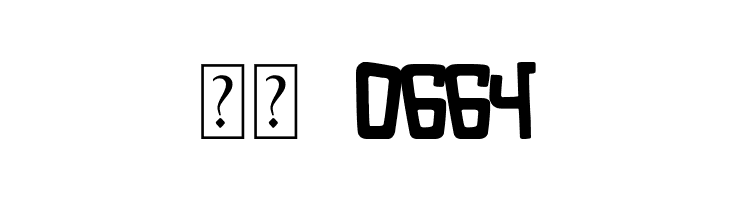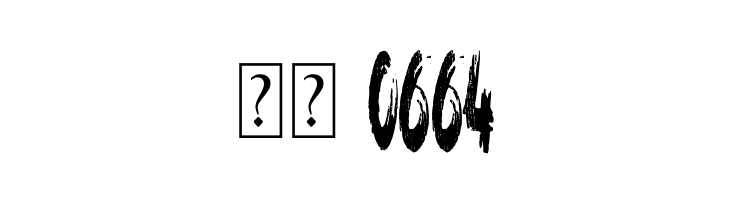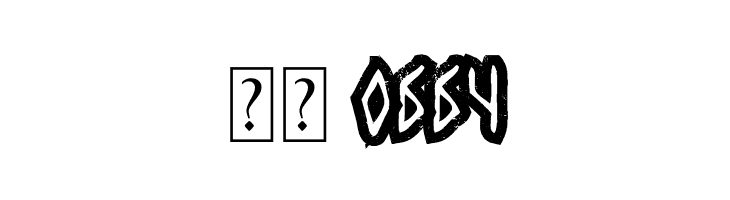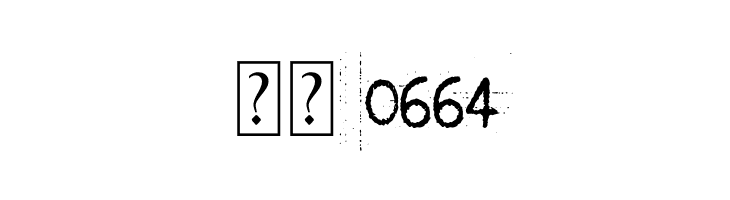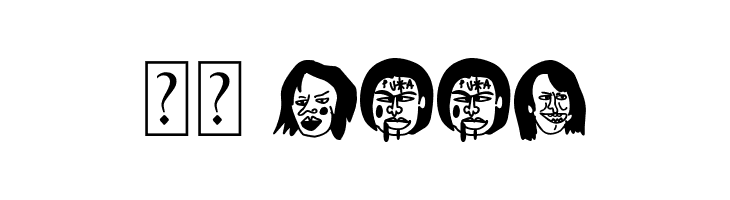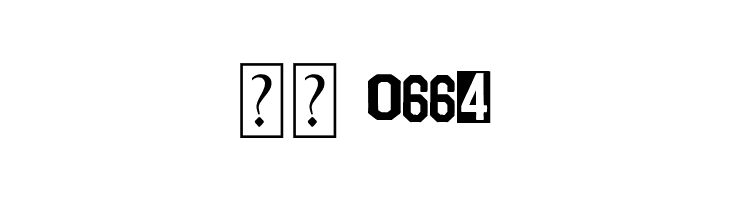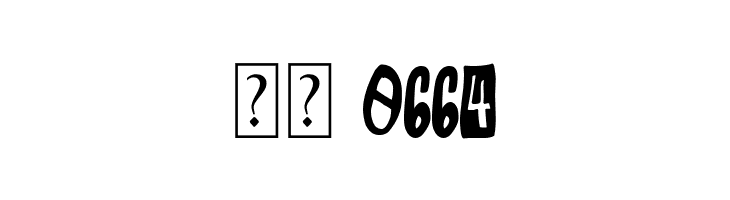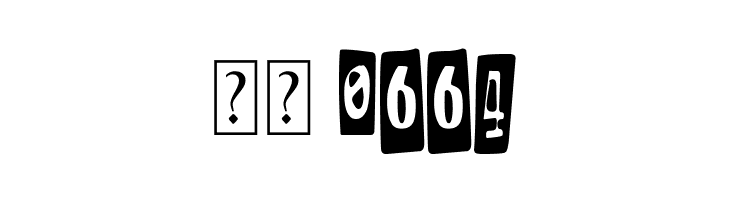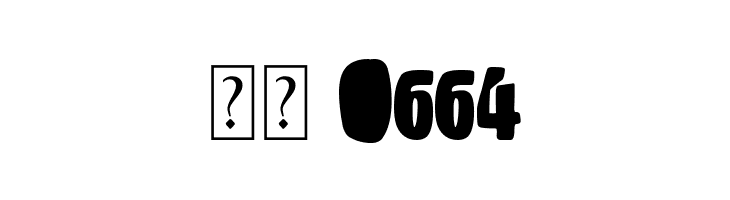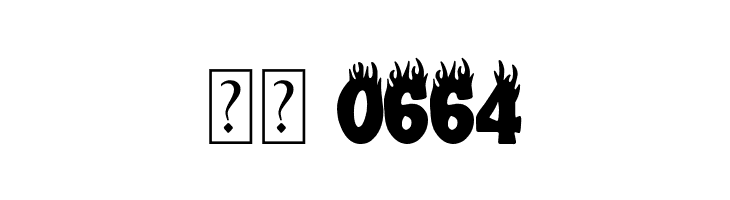
• Printing
Icon-based font featuring printing and production symbols.
• Prison of Love
A bold, glitch-inspired font with a modern, distressed look.
• Problems in Winsconsin
A bold, geometric font with a strong industrial aesthetic.
• Profile
Silhouette profile illustrations of various head shapes and hairstyles.
• Profile
• Property of Thor
A bold, distressed font with a rugged, hand-drawn appearance.
• Protagonista
A bold, textured font with a playful and rugged appearance.
• Prudencia
A pixelated, retro-style font with a bold, blocky design.
• Psycho Dad
A bold, horror-themed font with a dripping effect.
• Psycho Dad
A bold, horror-themed font with dripping effects and jagged edges.
• Puerto Rico Beach
A bold, playful font with thick, rounded strokes and a friendly appearance.
• Punk Army
A bold, distressed font with a rebellious, grunge-like aesthetic.
• Punk Cristiano
A bold, punk-inspired font with irregular, jagged letterforms and a rebellious aesthetic.
• Punk Homo Erectus
A bold, punk-inspired font with irregular, boxed characters.
• Punk Survival
A gritty, distressed font with a punk rock aesthetic, featuring bold, jagged characters.
• Punk Toons Channel
A bold, playful font with quirky, irregular characters enclosed in black squares.
• Punk Typewriter
A gritty, distressed typewriter-style font with a punk edge.
• Punk University
A bold, edgy font with irregular, blocky letterforms and a rebellious style.
• Punk West
A bold, distressed font with a rugged, edgy appearance.
• PunkLand
A bold, grungy font with a rebellious, punk-inspired aesthetic.